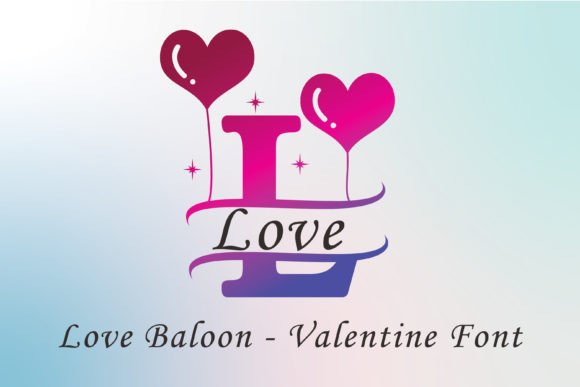
Introducing Love Baloon Font, a delightful and whimsical addition to your design arsenal! Created by the talented susecreative, this cute decorative font is guaranteed to captivate and enchant users with its playful curves and bouncy letters.
Love Baloon Font is the perfect choice for those seeking to infuse their designs with a touch of magic and charm. Whether you're designing greeting cards, invitations, or even branding materials, this font will instantly elevate your creations and leave a lasting impression.
Embrace the power of creativity with Love Baloon Font's unique and eye-catching features. Its carefully crafted letters dance across the page, exuding a sense of joy and happiness. Every stroke is infused with personality, making your text come alive and leaving a trail of smiles in its wake.
Unleash your imagination and let Love Baloon Font transport you to a world filled with delightful possibilities. Its versatility allows it to seamlessly blend with various design styles, from whimsical and playful to elegant and sophisticated.
With Love Baloon Font, you have the power to evoke emotions and create memorable experiences for your audience. Whether you're a professional designer or a DIY enthusiast, this font is the secret ingredient to making your projects truly stand out.
Say goodbye to dull and generic fonts and embrace the irresistible charm of Love Baloon Font. It's time to add a sprinkle of whimsy to your designs and watch them come to life.